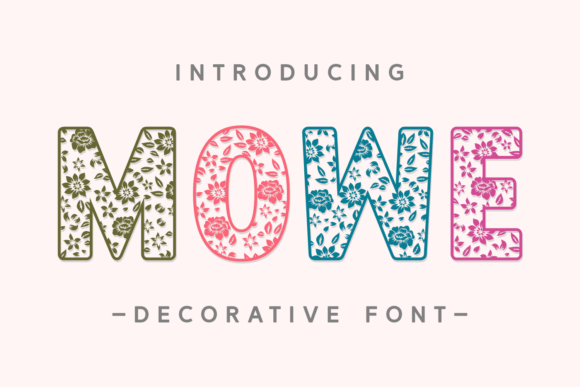
Mowe Font: Elevate Your Designs with Elegant Floral Typography
In the world of typography, few fonts manage to capture the essence of elegance and sophistication as beautifully as Mowe Font. This stunning decorative font is intricately designed with delicate floral patterns embedded within each letter, making it a perfect choice for a variety of design projects that demand a touch of class and refinement. From wedding invitations and branding to feminine designs, seasonal projects, and elegant packaging, Mowe Font stands out as a versatile and eye-catching typeface.
The Beauty of Mowe Font
Mowe Font is a masterpiece of typographic design, where artistry meets functionality. Each letter in the font is carefully crafted with intricate floral elements that add a unique charm to any design. The combination of these artistic floral patterns with stylish typography results in a font that is not only beautiful but also highly versatile. Whether you’re looking to create a sophisticated wedding invitation or an elegant brand logo, Mowe Font provides the perfect blend of delicacy and boldness.
Example of Mowe Font in use
Key Features of Mowe Font
- Intricate Floral Patterns: Each letter in Mowe Font is embedded with delicate floral designs, making every character a piece of art.
- Delicate yet Bold: The font strikes the perfect balance between delicacy and boldness, making it suitable for a wide range of design projects.
- Versatile: Ideal for wedding invitations, branding, feminine designs, seasonal projects, and elegant packaging.
- Sophisticated and Eye-Catching: The combination of artistic floral elements and stylish typography ensures that your designs stand out.
Use Cases for Mowe Font
Mowe Font’s versatility makes it suitable for various design projects. Here are some of the most popular use cases:
Wedding Invitations
Weddings are a celebration of love and beauty, and the invitation sets the tone for the entire event. Mowe Font, with its delicate floral patterns and elegant typography, is perfect for creating stunning wedding invitations that reflect the sophistication and joy of the occasion.
Example of Mowe Font used in a wedding invitation
Branding
For businesses that want to convey elegance and sophistication, Mowe Font can be a valuable asset. It can be used to create logos, packaging, and marketing materials that stand out and make a lasting impression.
Feminine Designs
Mowe Font’s delicate and floral design makes it a perfect fit for feminine designs. Whether you’re creating a blog, a fashion brand, or any other project that caters to a female audience, this font will add a touch of grace and style.
Seasonal Projects
Seasonal projects, such as holiday cards or summer sale announcements, can benefit greatly from Mowe Font’s elegant and festive feel. The floral patterns can be tailored to fit different seasons, making the font highly adaptable.
Elegant Packaging
In the world of product packaging, standing out on the shelves is crucial. Mowe Font can be used to create elegant and eye-catching packaging that not only attracts attention but also communicates the brand’s commitment to quality and style.
Why Choose Mowe Font?
With so many fonts available, why should you choose Mowe Font for your projects? Here are a few compelling reasons:
- Unique Design: Mowe Font offers a unique blend of intricate floral patterns and stylish typography that is hard to find elsewhere.
- High Versatility: The font can be used across various design projects, from digital to print.
- Elegance and Sophistication: Mowe Font adds a touch of elegance and sophistication to any design, making it perfect for projects that demand a high level of refinement.
- User-Friendly: Despite its intricate design, Mowe Font is easy to use and can be integrated into various design tools and software.
Tips for Maximizing Mowe Font’s Potential
To get the most out of Mowe Font, consider the following tips:
- Pair with Simple Backgrounds: Let the intricate details of the font shine by pairing it with simple backgrounds.
- Experiment with Colors: While the font looks great in traditional colors like gold, silver, or pastel shades, don’t be afraid to experiment with bold and contrasting colors.
- Use in Combination with Other Fonts: Mowe Font can be paired with other fonts for added contrast and visual interest. Choose fonts that complement its elegant style.
Mowe Font is a beautifully decorative font that brings elegance and sophistication to any design project. Its intricate floral patterns, combined with stylish typography, make it a standout choice for wedding invitations, branding, feminine designs, seasonal projects, and elegant packaging. With its versatility, unique design, and ease of use, Mowe Font is an excellent addition to any designer’s toolkit. Whether you’re looking to create stunning wedding invitations or elegant brand logos, Mowe Font is sure to elevate your designs and leave a lasting impression.